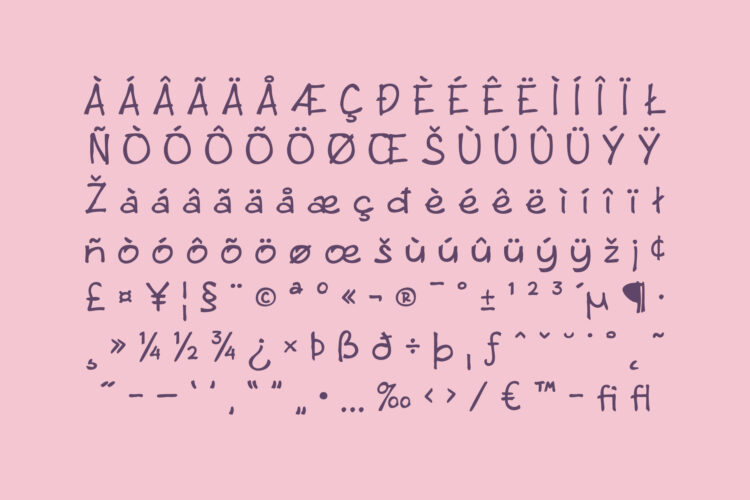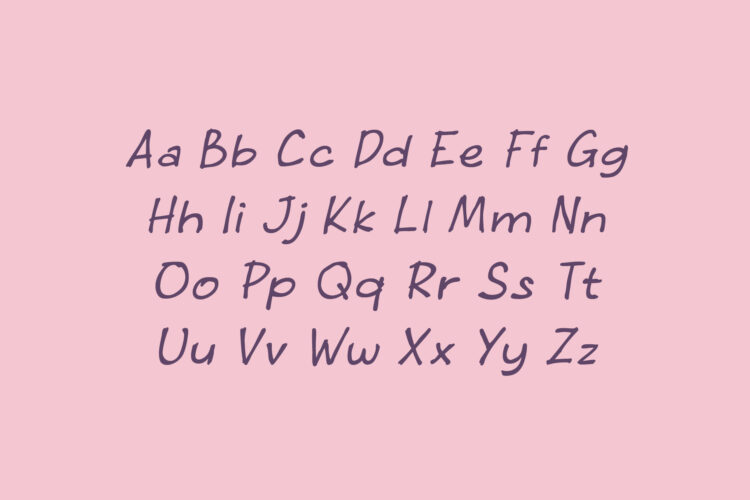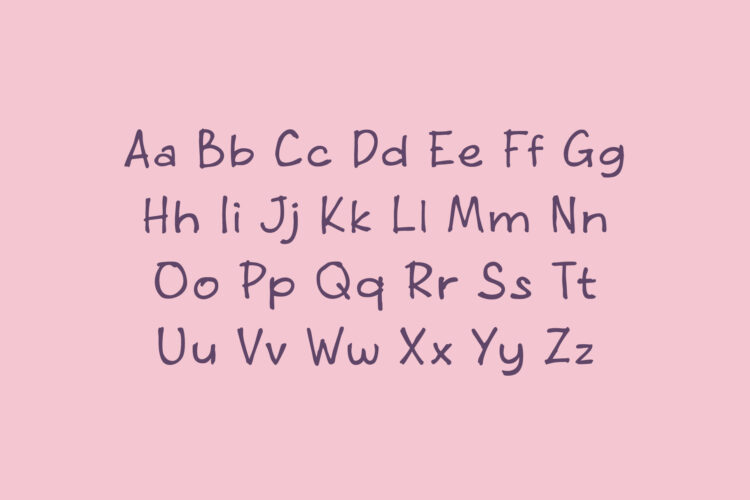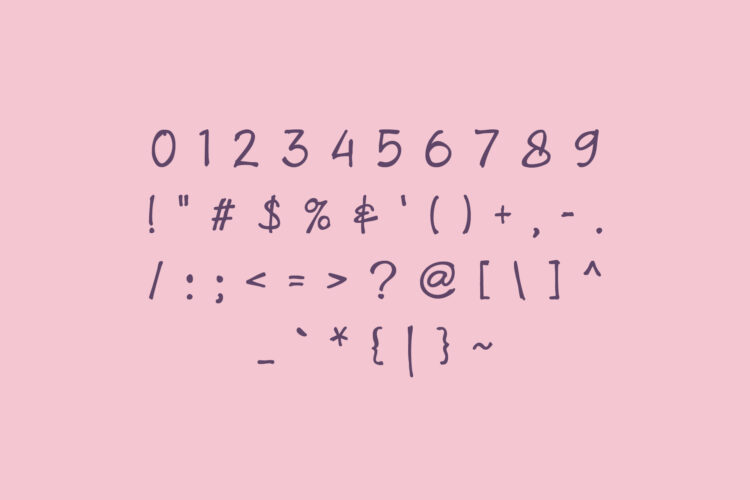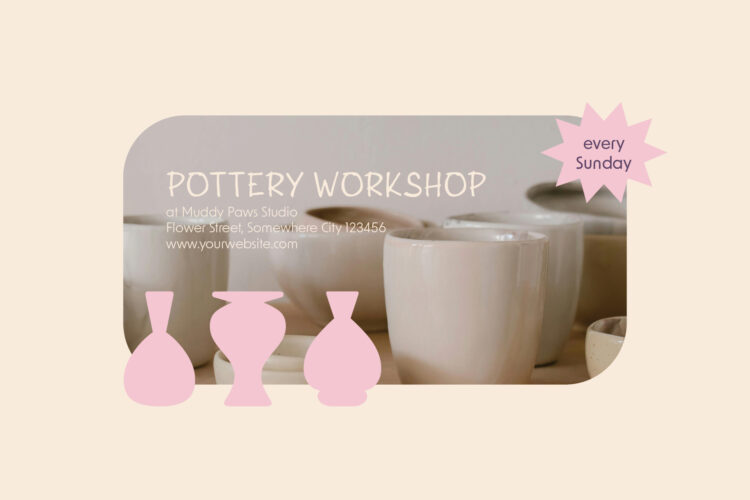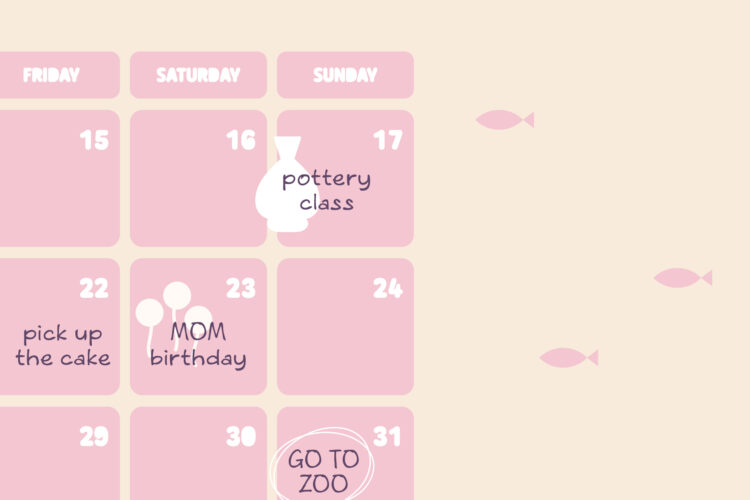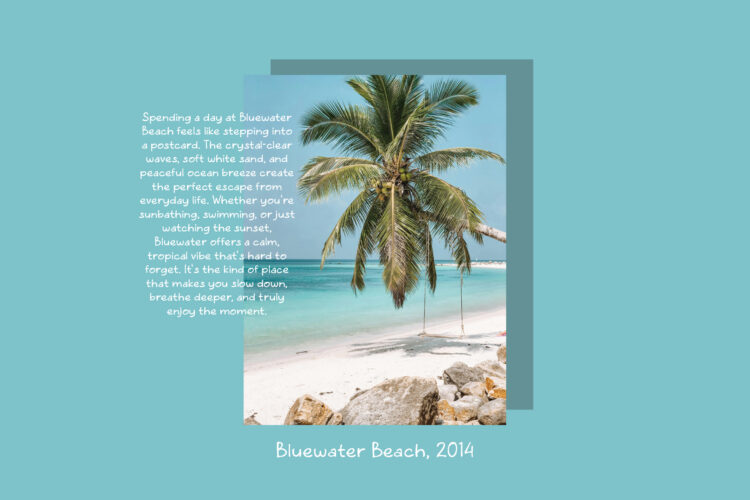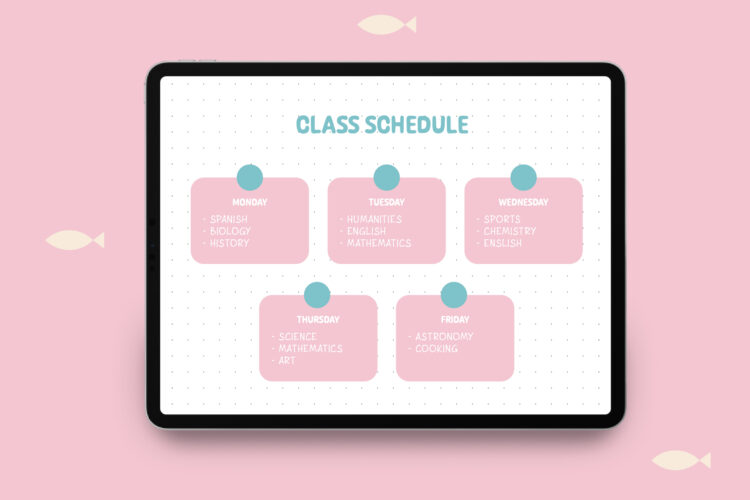
Introducing Wormies – a hand-drawn, textured font that brings life and personality to your designs. With its scribbly lines and imperfect charm, Wormies captures the spirit of handmade creativity in every letter.
This font includes uppercase and lowercase letters, numbers, and a set of basic symbols. So, this font making it a versatile choice for everything from playful branding to eye-catching social media posts. Its textured, raw look adds an authentic, human touch that sets your work apart.
PGR Wormies – Imperfect Font